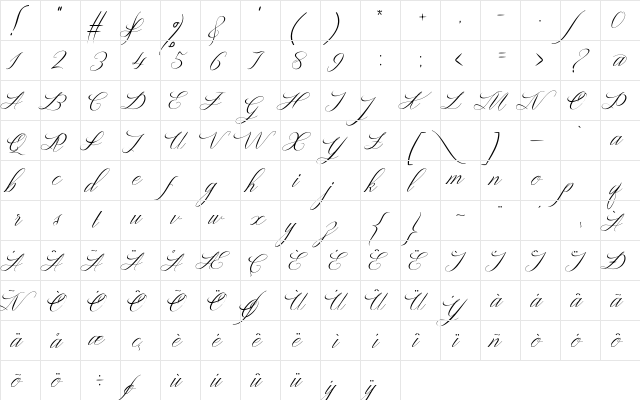
imagine Regular
| Foundry | alcode |
| Designer | alcode |
Design Context for imagine Typeface
imagine is a composed and adaptable typeface that performs quietly and consistently across a wide range of design contexts.